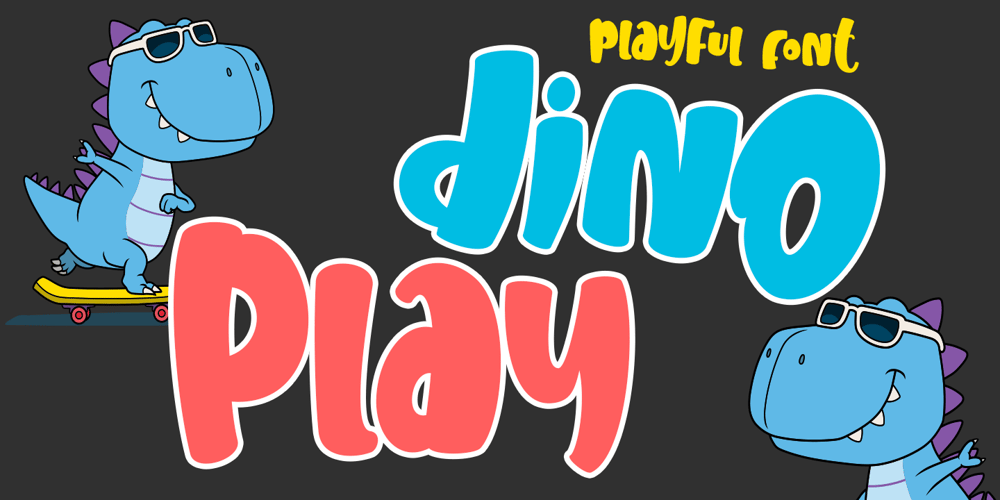
Dino Play Font Family was designed by Stefani Tri Rosa Setiati Christiana and published by Stefani Letter. Dino Play contains 1 styles and family package options. Dinoplay is a cute, new, fresh, and friendly display font. It embodies happiness and authenticity and is the perfect choice for any children activity or school project, but also It’s ideal for branding and decorate your projects. Add this chunky lettered font to your designs and notice how it makes them come alive! . This font is PUA encoded which means you can access all of the cute glyphs with ease! It also features a wealth of including ligatures.